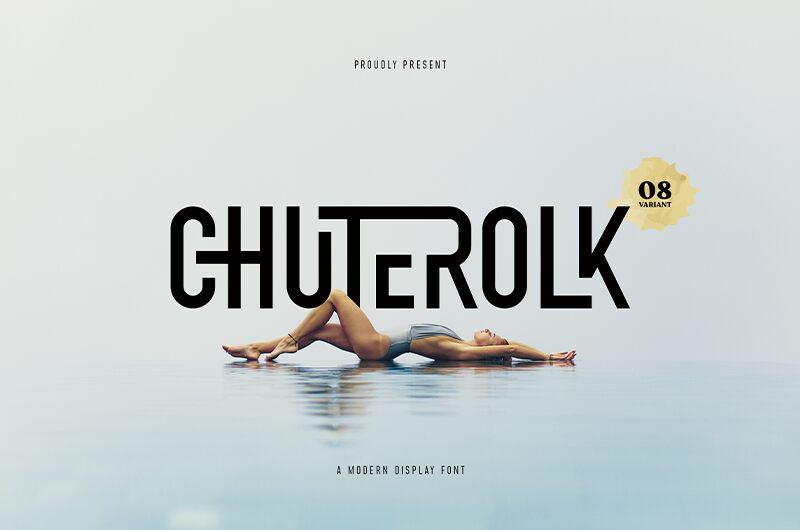
CHUTEROLK is Modern sans serif font that is out of this world, a strong balance between strong pointed corners and smooth curves. Available in 08 style, included alternate, ligature and multilingual support.